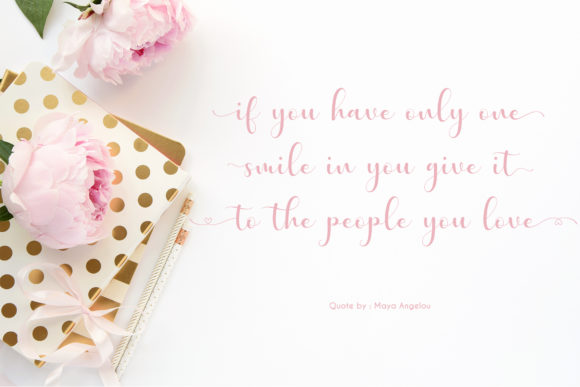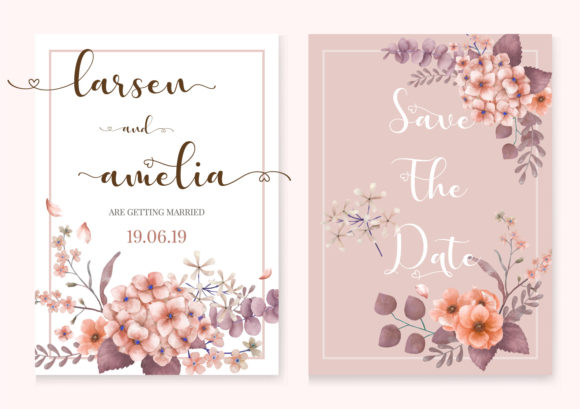
Lovely Valentine Font
db-ku.com - Script & Handwritten -- The Lovely Valentine is an unique blend of a classic and modern font. It has an imperfect style with dancing letters.